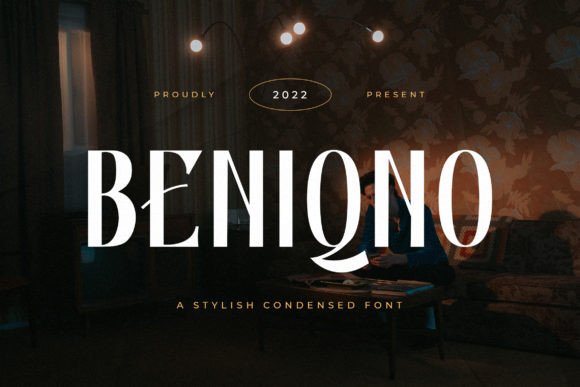
Dive into the world of elegance and sophistication with Beniqno Font, the captivating condensed sans serif font that will transform your creative visions into stunning realities. Experience the allure of Beniqno's meticulously crafted curves, where each letter exudes a timeless grace that elevates your designs to new heights of artistry.
Unleash your creativity and let Beniqno guide you through a symphony of design possibilities. Envision the allure of a luxury logo that exudes exclusivity and prestige, or the charm of classy editorial designs that captivate readers with their refined aesthetics. Adorn your magazines with Beniqno's timeless elegance, making them true works of art.
Picture the allure of a cosmetic brand that radiates sophistication and beauty, its packaging adorned with Beniqno's exquisite charm. Embark on a fashion promotional campaign that oozes style and exclusivity, captivating your audience with Beniqno's timeless appeal. Let Beniqno be the muse for your art gallery branding, imbuing it with an aura of creativity and inspiration.
Imagine the grandeur of a museum or historical monument, its signage adorned with Beniqno's elegant strokes, guiding visitors through a journey of time and culture. Envision the charm of a boutique brand that exudes individuality and luxury, its identity crafted with Beniqno's refined lines. Let Beniqno inspire your stationery designs, adding a touch of elegance to your correspondence and transforming everyday moments into works of art.
Embrace the power of Beniqno in your blog design, creating a digital haven that exudes sophistication and style. Craft modern advertising designs that capture attention and leave a lasting impression, utilizing Beniqno's timeless allure to elevate your message. Extend Beniqno's charm to card invitations, transforming special occasions into unforgettable memories.
Let Beniqno's artistry adorn your art quotes, inspiring hearts and minds with its beauty. Elevate your home décor with Beniqno's timeless elegance, adding a touch of sophistication to every corner of your living space. Imagine the allure of a book or cover title adorned with Beniqno's exquisite strokes, inviting readers to embark on a literary journey they'll never forget.